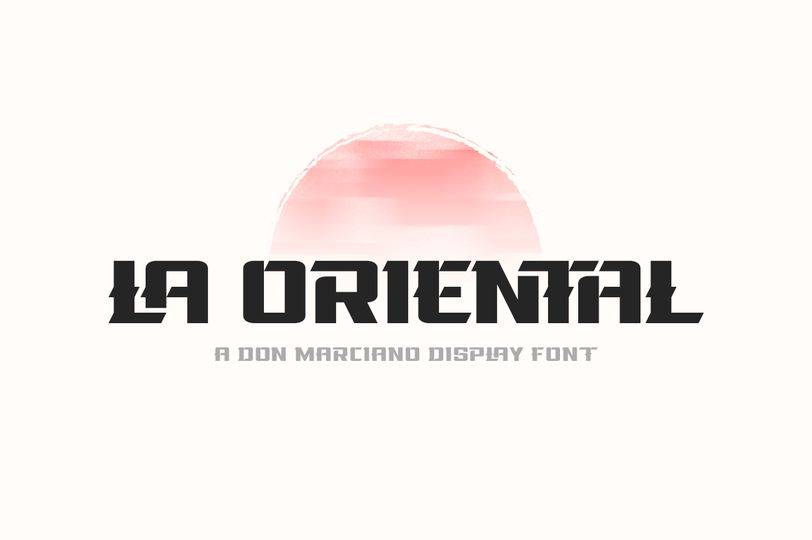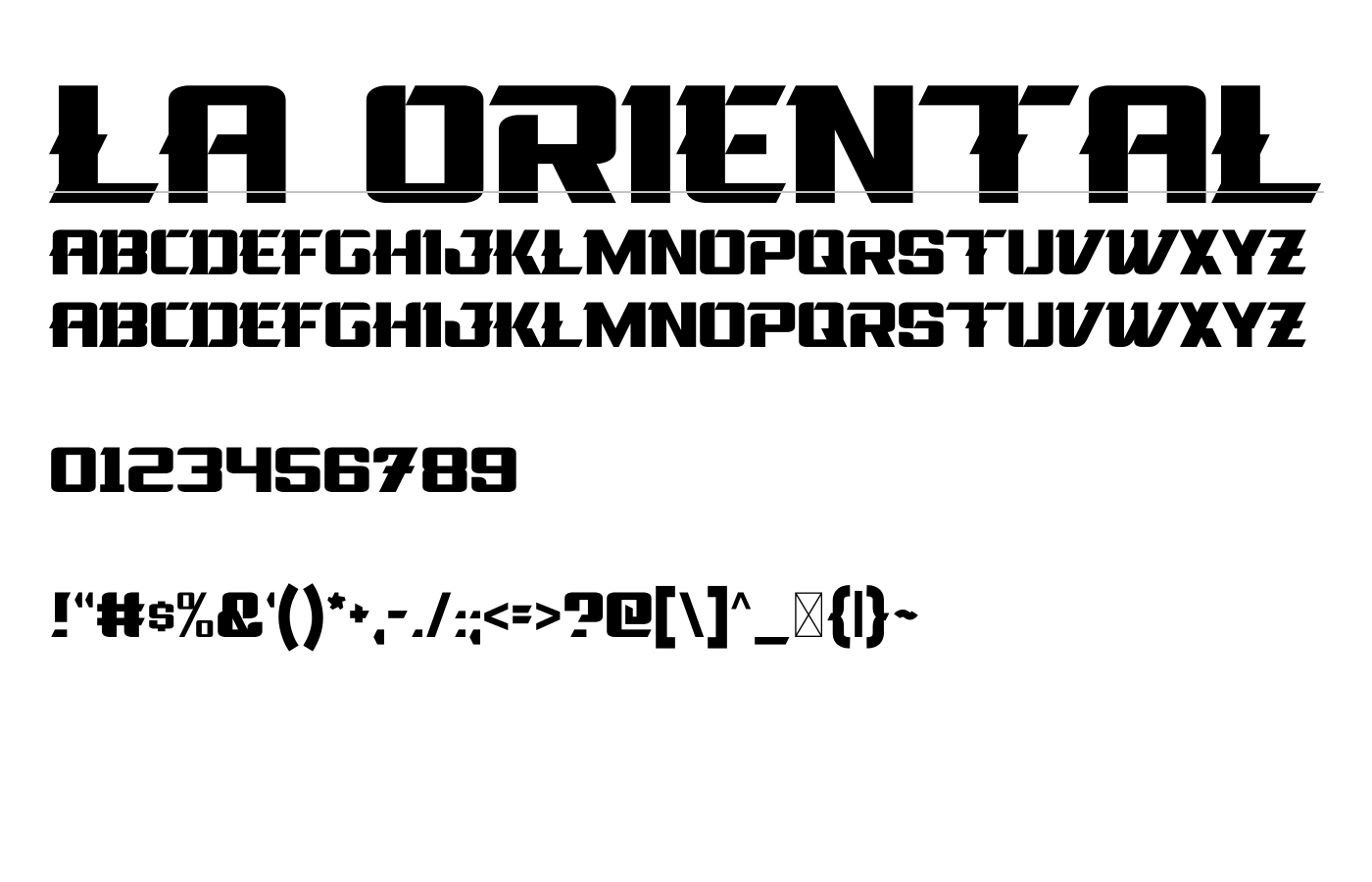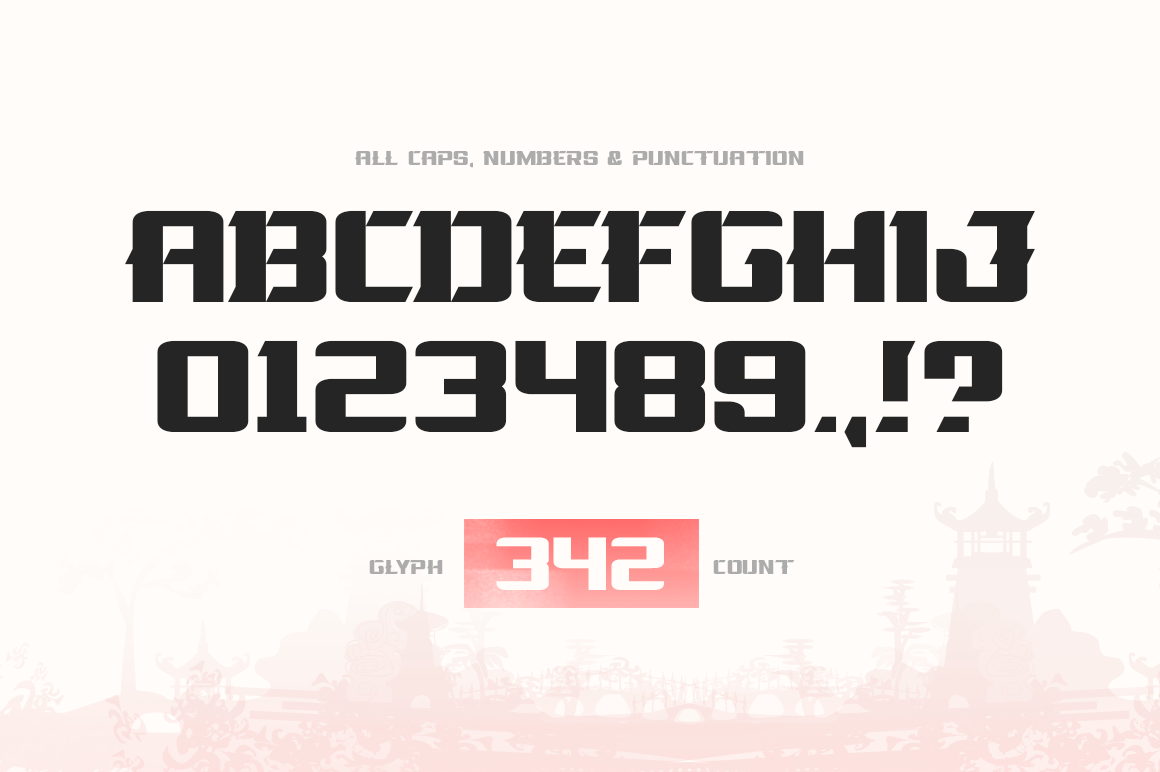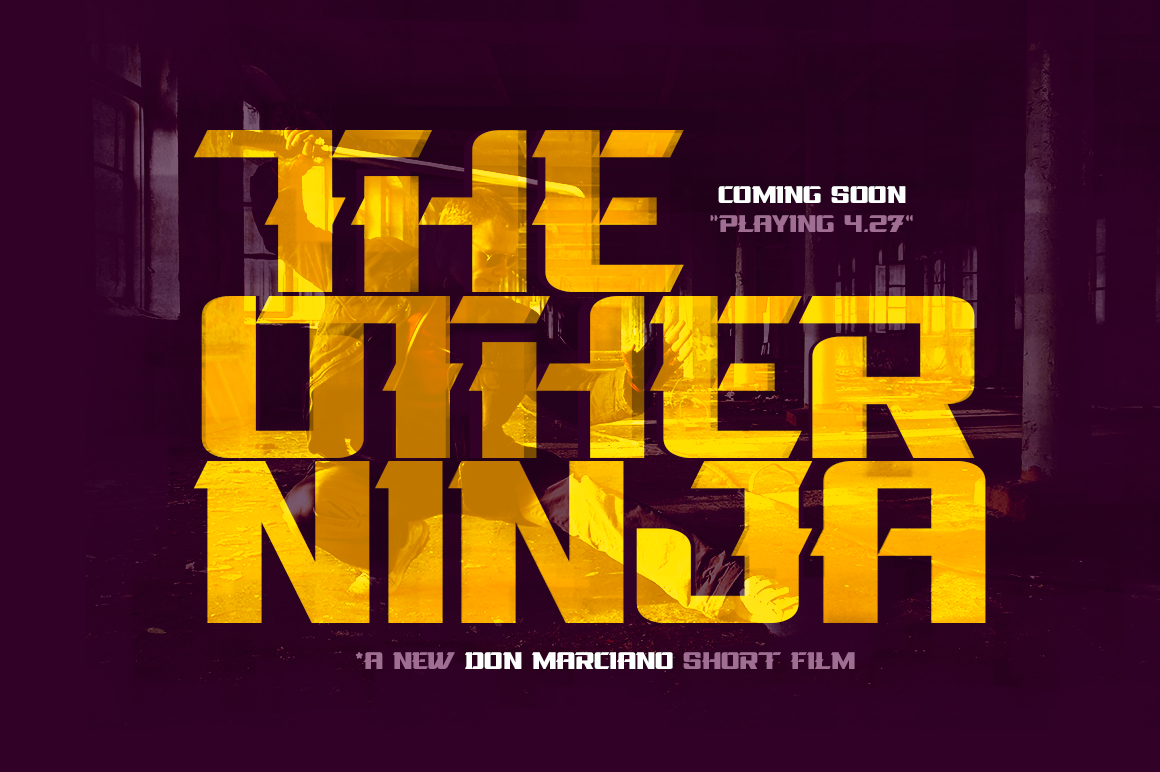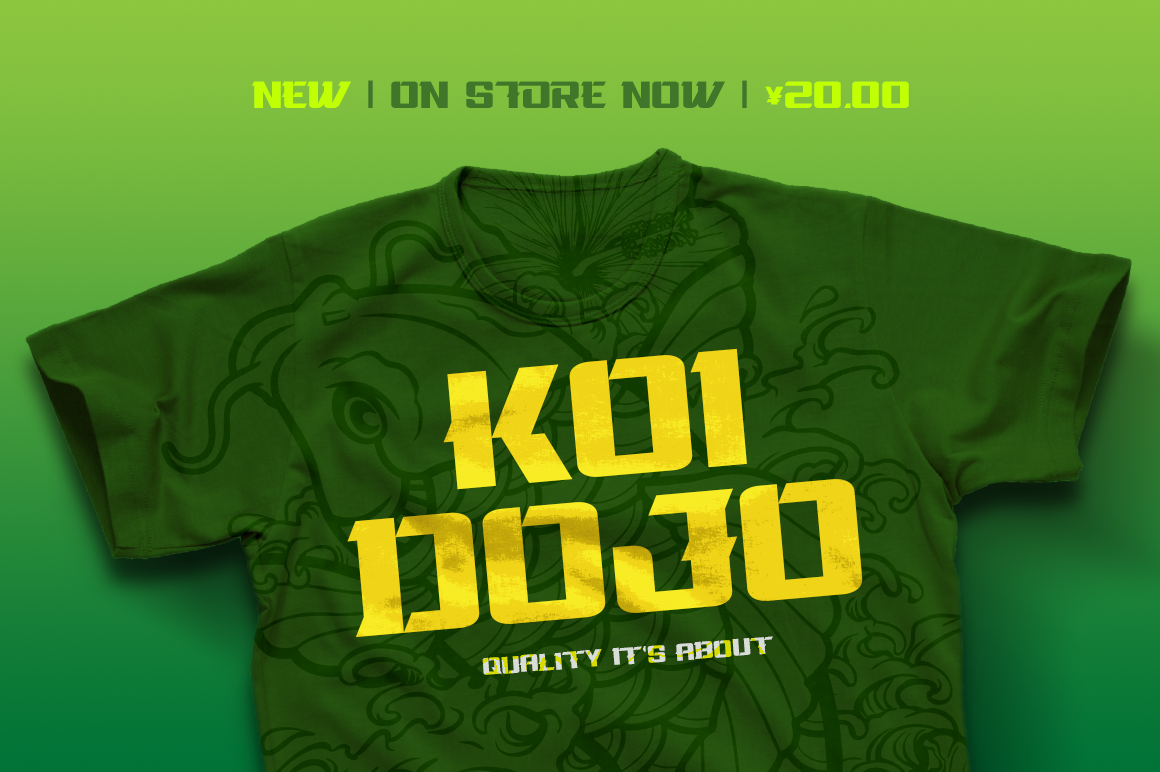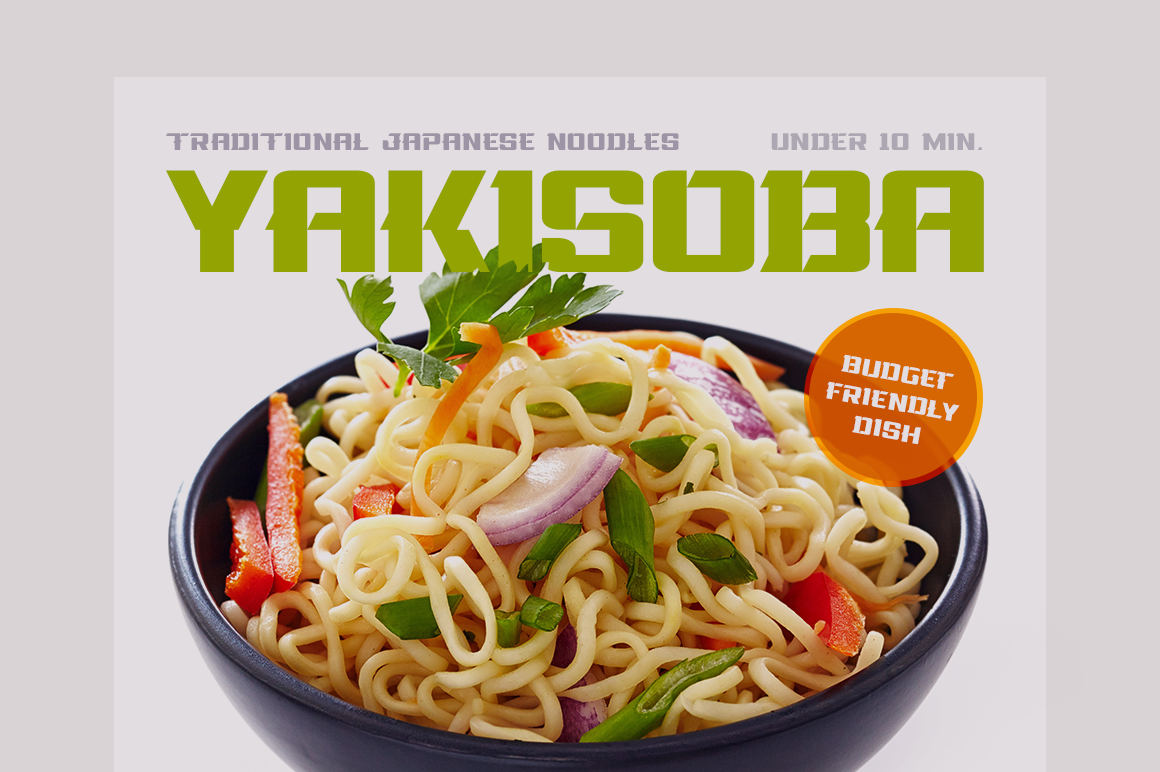
La Oriental Display Font
La Oriental Display Font is a strong bold style font coming from DonMarciano. It was design for a sub-brand of precooked oriental theme food packages that needed to transmit familiarity and confidence. It’s great for posters, quotes, short text, logo, branding, web, graphic design, and other everyday designs. Please Enjoy!